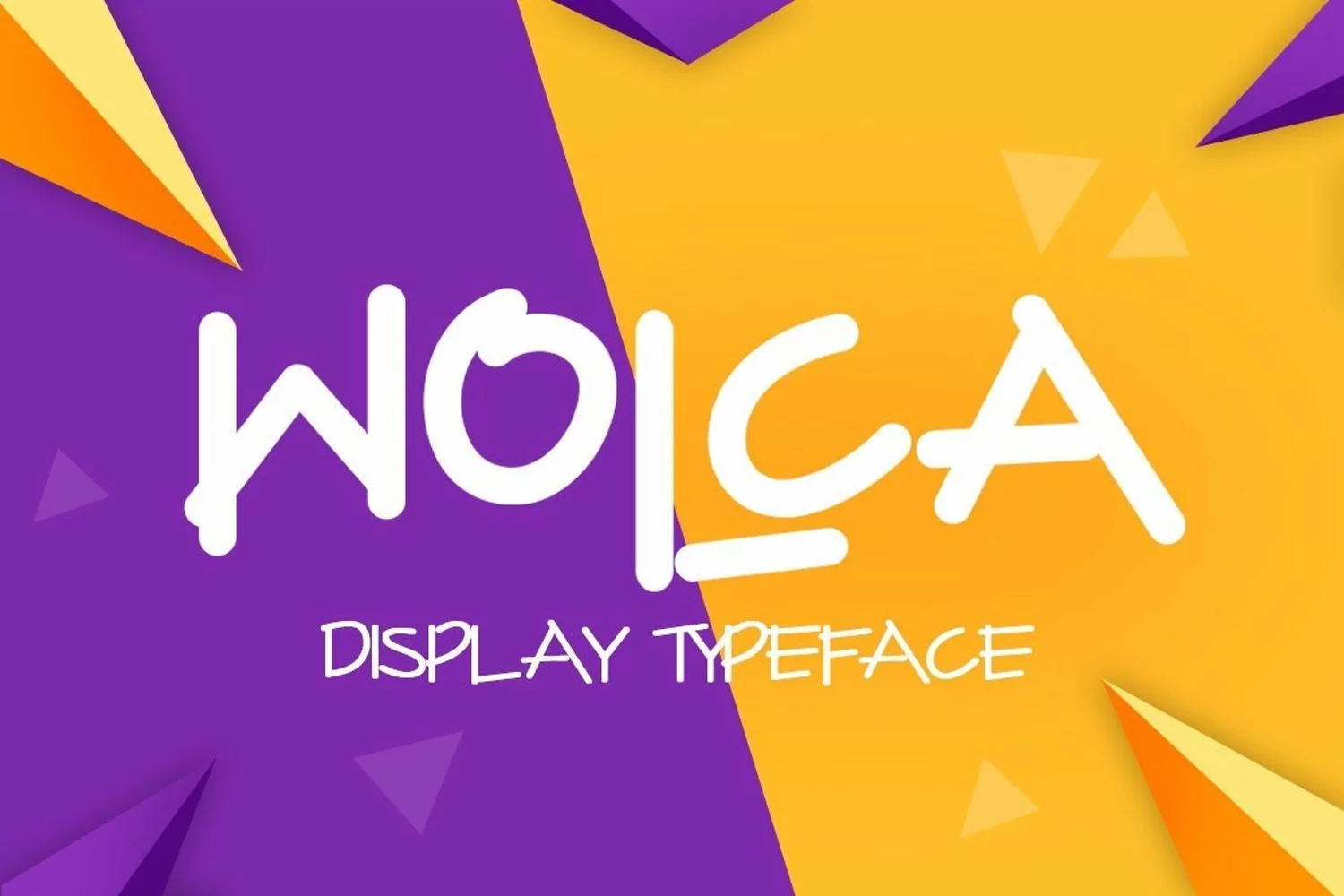
Wolca display font trio has awesome character with 3 fonts, Wolca Regular, Wolca Thin and Wolca Rough. Wolca display font is perfect for namecards, posters, logos, magazines, covers, banners, tshirts and headers, or even large-scale artwork.